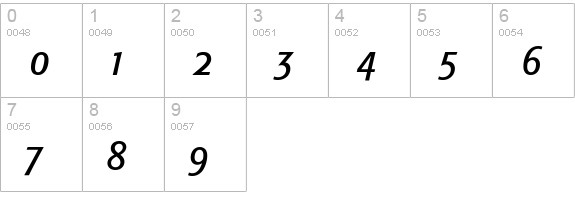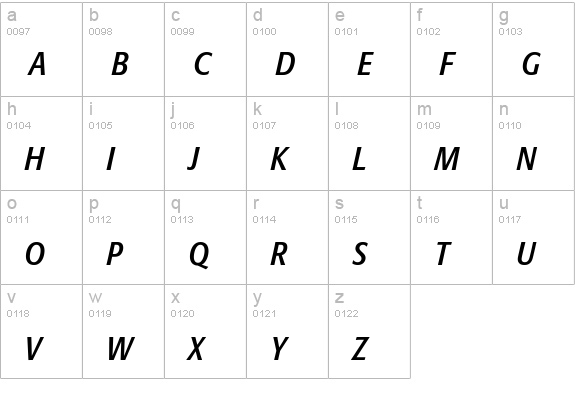
Formata Condensed Italic Small Caps & Oldstyle Figures Font Details
Formata Condensed Italic Small Caps & Oldstyle Figures is a distinctive, condensed-width, italic variant in the Formata typeface family \xE2\x80\x94 well suited to design and typography projects.
Formata Condensed Italic Small Caps & Oldstyle Figures font is a sleek and elegant typeface that perfectly balances modern design with classic elements. The condensed italic style adds a touch of sophistication, while the small caps and oldstyle figures give it a timeless appeal. This versatile font is ideal for a wide range of design projects, from branding to editorial design. And the best part? It's completely free to download at FontsMarket.com! Now you can elevate your designs with this premium font without breaking the bank. Don't miss out on this opportunity to add a touch of elegance to your work with Formata Condensed Italic Small Caps & Oldstyle Figures font, available for free at FontsMarket.com.